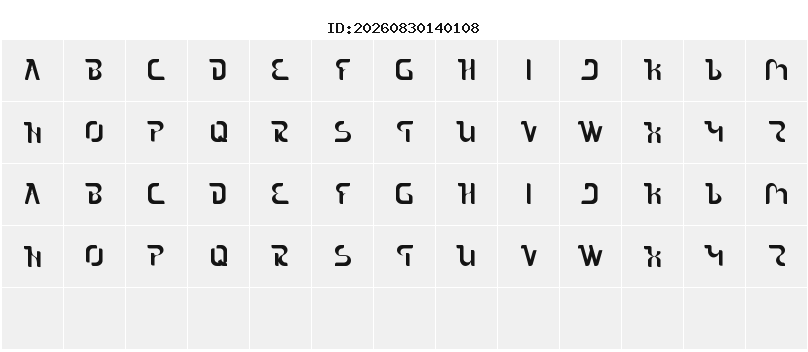
• Font Name: The Sound
• Full Font Name: The Sound
• Version: Version 1.00 January 7, 2013, initial release
About The Sound.ttf
The Sound.ttf is a modern, elegant sans-serif font designed for ultimate readability and visual harmony. Perfect for branding, headlines, web design, and print materials.